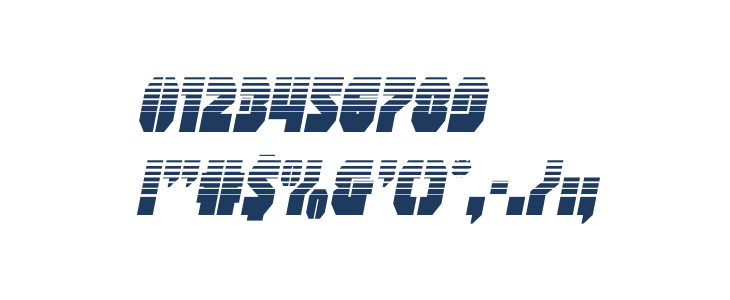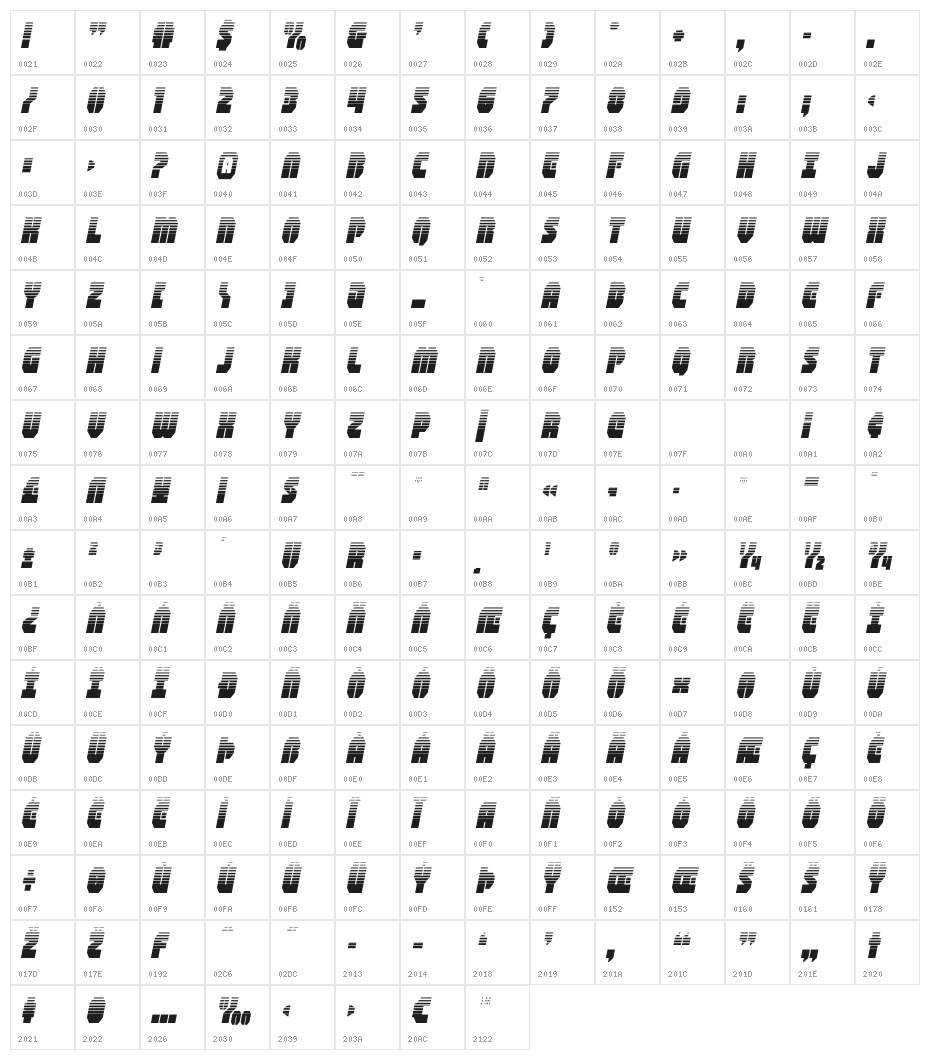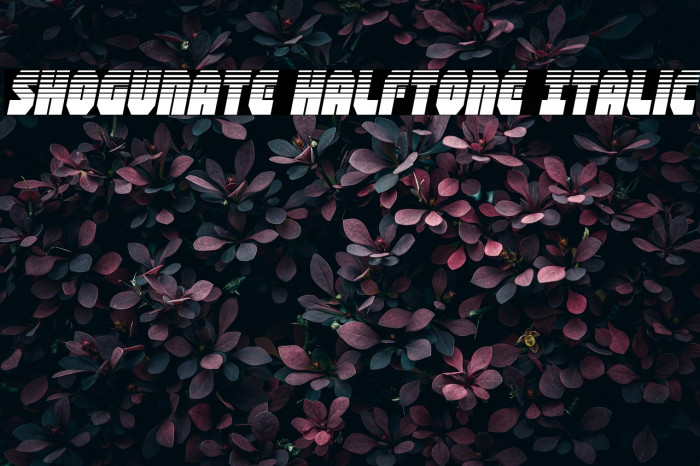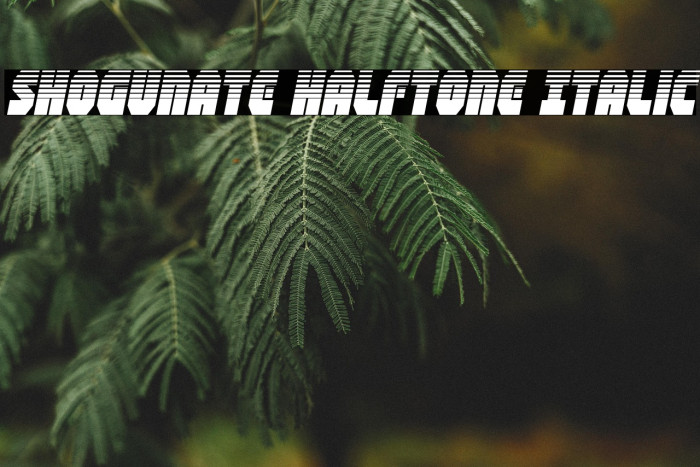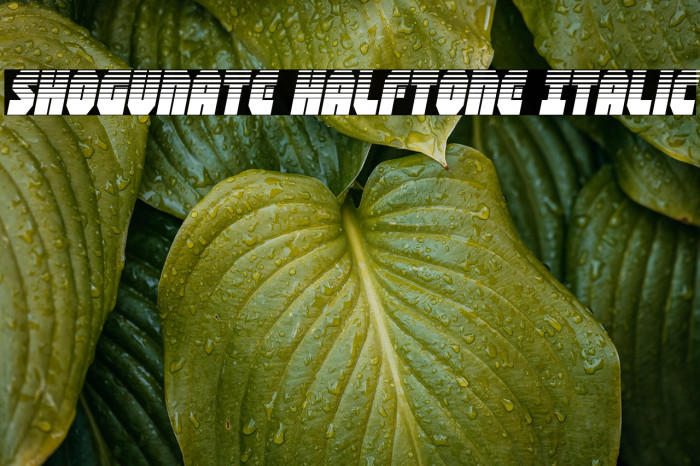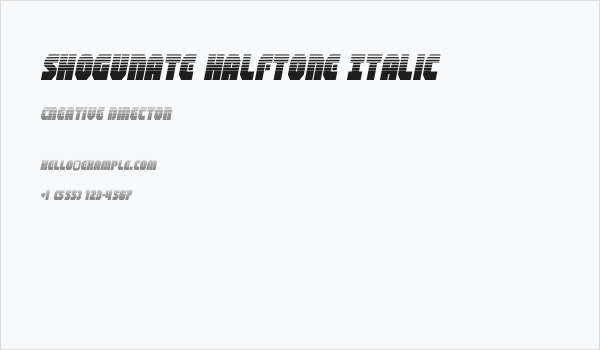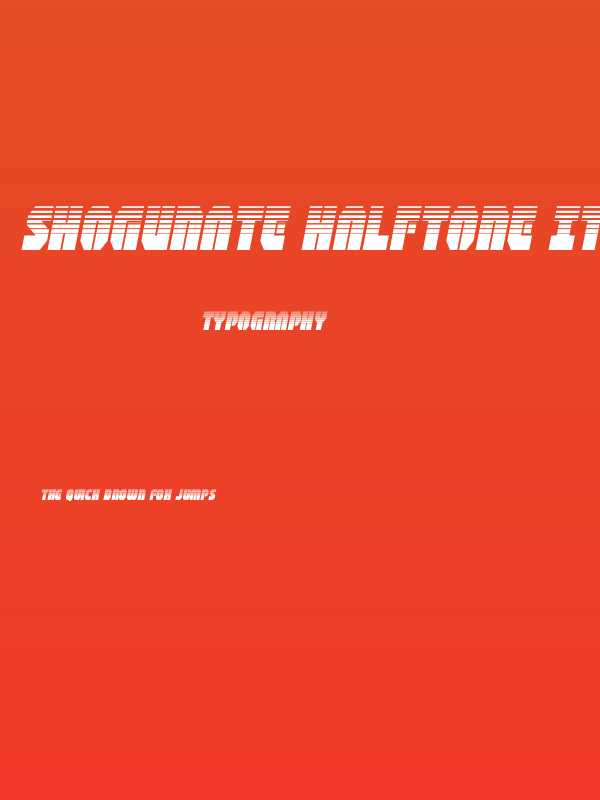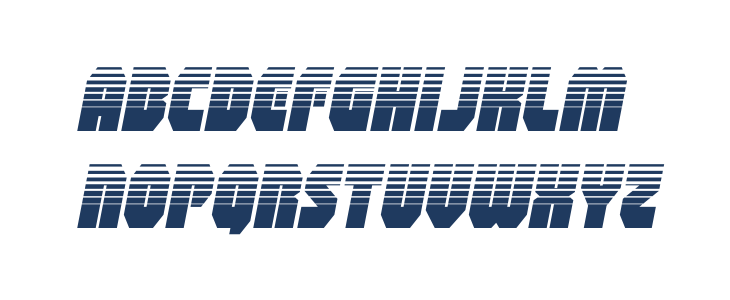
Shogunate Halftone Italic Font
Shogunate Halftone Italic Description
This font features a bold, geometric design with a halftone effect that gives it a unique, futuristic appearance. The characters are italicized, adding a dynamic and forward-leaning aspect to the text. Each letter is composed of horizontal lines that create a sense of movement and energy. The uppercase and lowercase letters maintain a consistent style, with sharp angles and a blocky structure. The numbers and special characters follow the same design principles, ensuring uniformity across all glyphs. This font is ideal for projects that require a modern and edgy look, such as technology branding, video game titles, or sci-fi themed designs.
| Overall Style | Futuristic, Modern |
| Proposed Projects | Ideal for technology branding, video game titles, sci-fi themed designs, and modern advertising. |